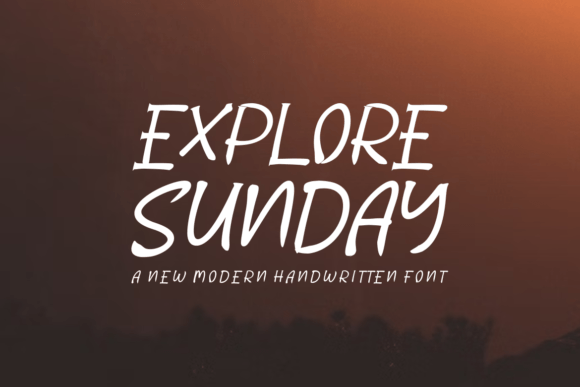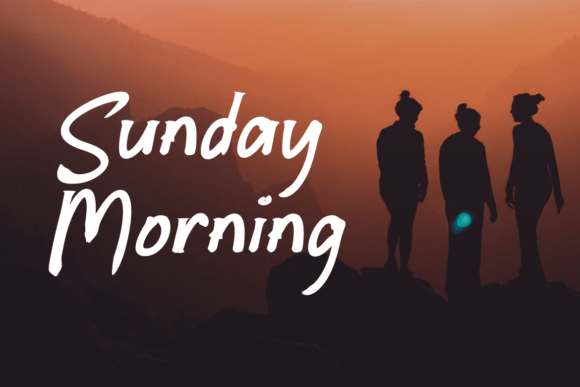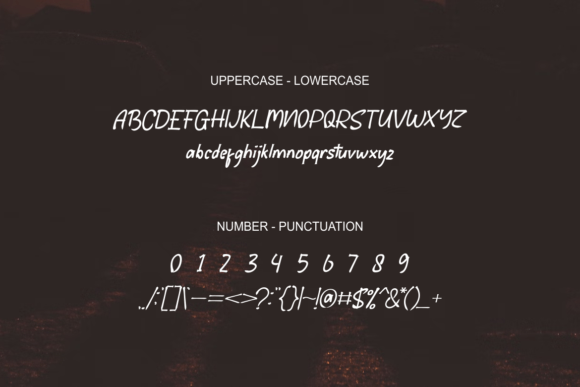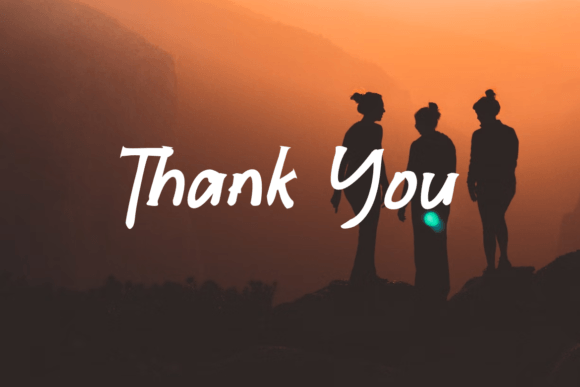
Introduction to Explore Sunday Font
Explore Sunday is a bold, handwritten font that gives a playful and adventurous feel.
It looks like itโs been written with a marker, making it perfect for creative projects like posters, invitations, and social media graphics Its thick lines and casual style add a fun and friendly touch to any design.